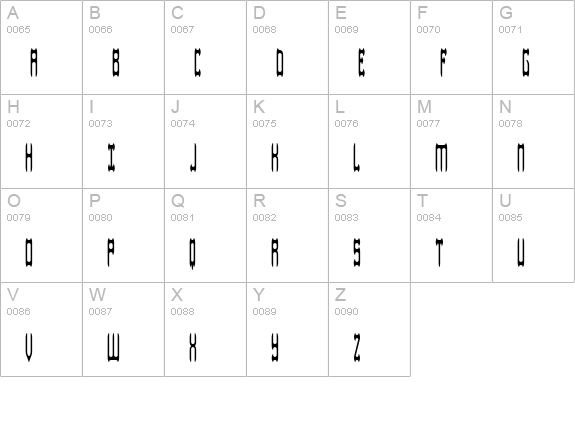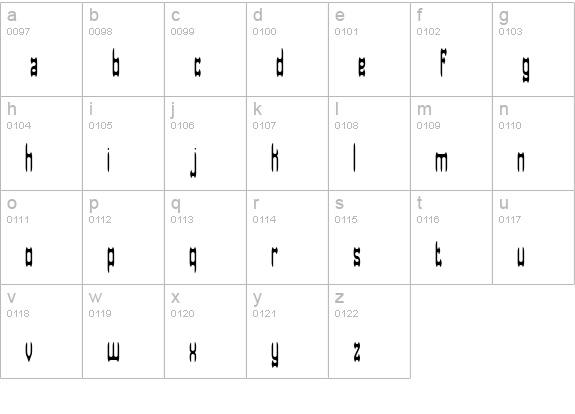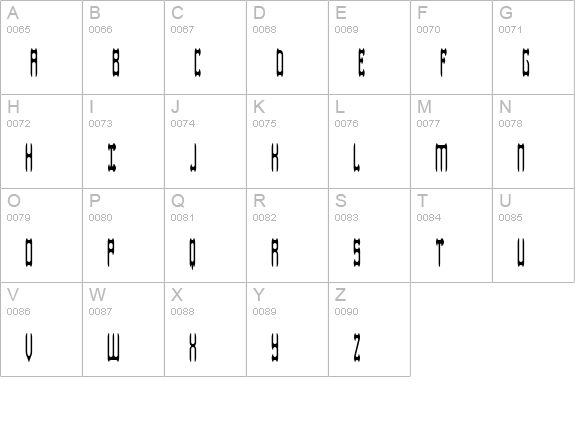
Dastardly BRK font is a bold and striking typeface that exudes a sense of edgy sophistication. With its sharp angles and sleek lines, this font is perfect for making a statement in your designs. Whether you're creating a poster, logo, or website, Dastardly BRK will add a touch of modern flair. The best part? Dastardly BRK font is completely free to download at FontsMarket.com. You can easily incorporate this eye-catching font into your projects without breaking the bank. Don't miss out on the opportunity to elevate your designs with Dastardly BRK font - get it now and unleash your creativity!